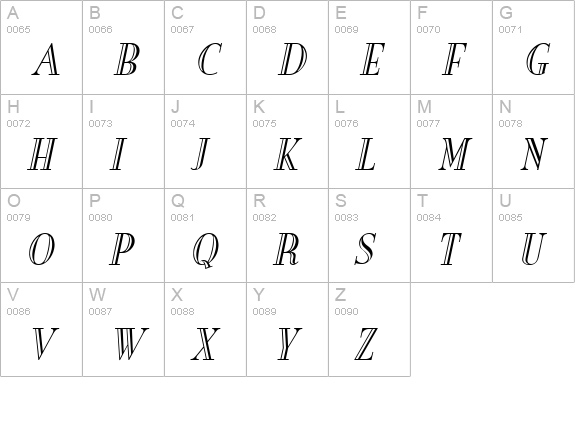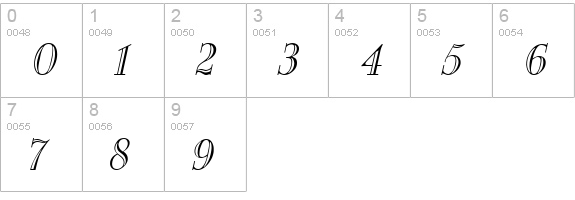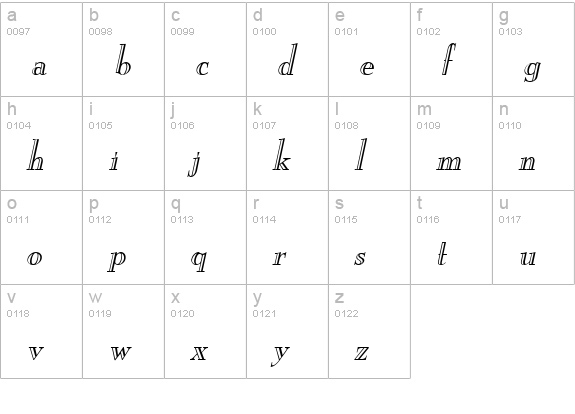
New England Engraved Italic Font Details
New England Engraved Italic is a distinctive, italic variant in the New typeface family \xE2\x80\x94 well suited to design and typography projects.
New England Engraved Italic font exudes timeless elegance and sophistication with its delicate and refined letterforms. This exquisite typeface combines classic engraving styles with a modern twist, making it perfect for adding a touch of luxury to any design project. The graceful curves and intricate details of New England Engraved Italic font make it ideal for invitations, stationery, branding, and more. The best part is that New England Engraved Italic font is freely available to download at FontsMarket.com. Now you can effortlessly elevate your designs with this stunning typeface without any cost. Embrace the beauty and versatility of New England Engraved Italic font to bring a touch of sophistication to your projects.